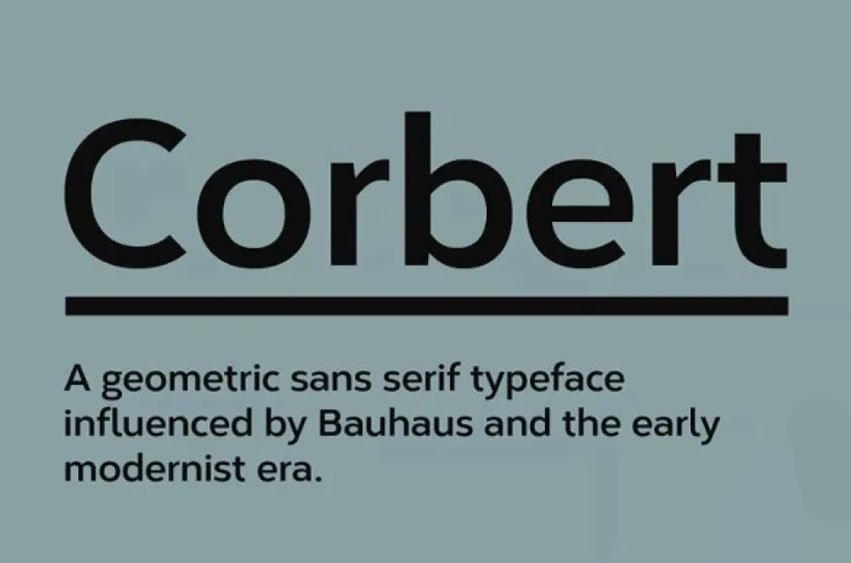
Corbert Font
Corbert Font is a sans Serif Font is an elegant typographic design of sans serif typeface family with different stylistic styles and weights that differ. Born out of Bauhaus and early modernist periods, this geometric look is indeed an aesthetic al encounter for users of this typeface family. More specific forms are corrected optically for an ideally readable typeface called Corbert. The natural shapes make it easy for it to stand out against competitors and readability is just out of this world.
Corbert is a very pragmatic style that can be used throughout various applications without problems. Other characteristics are nine weights of the typeface plus matching italics giving over 540 characters per style. Opentype features include five variants of numerals containing superiors, inferiors, fractions, and alternate lowercase letters a,e and g plus language support for Western, South and Central Europe.